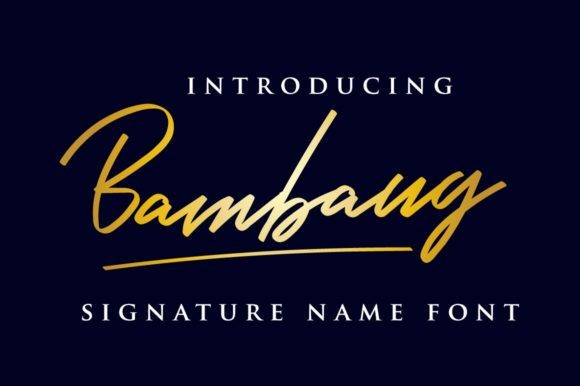
Bambang Signature Font
The Bambang is an unique signature font. It was inspired by the old name’s of Javanese soldiers. Old people usually used this style to write their name. It includes manly, bold and strong characters in a handwritten style.
It’s perfect for name cards, branding, product designs, and much more!